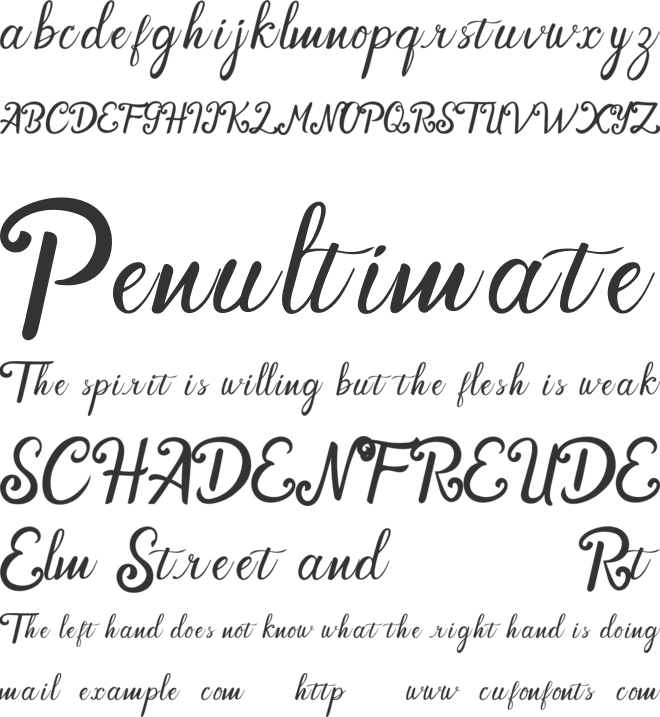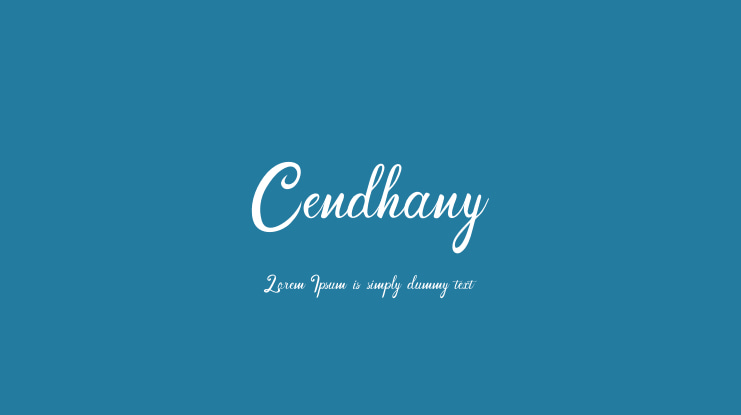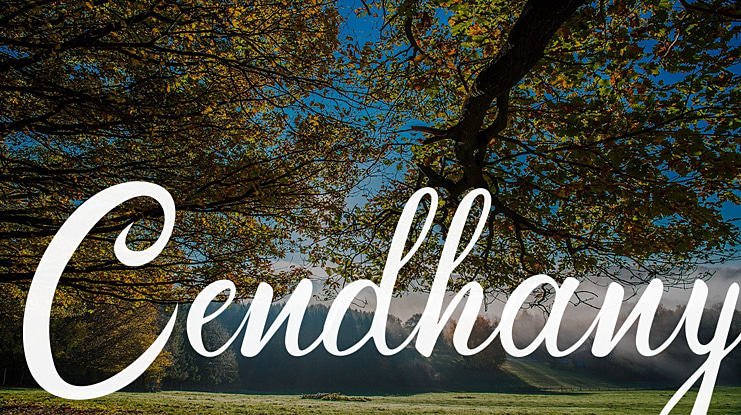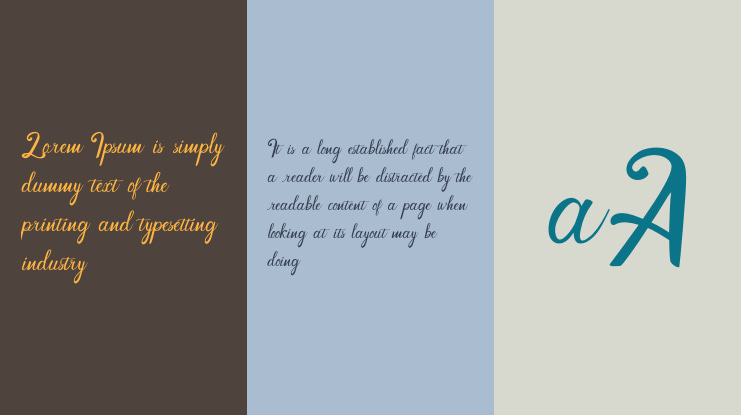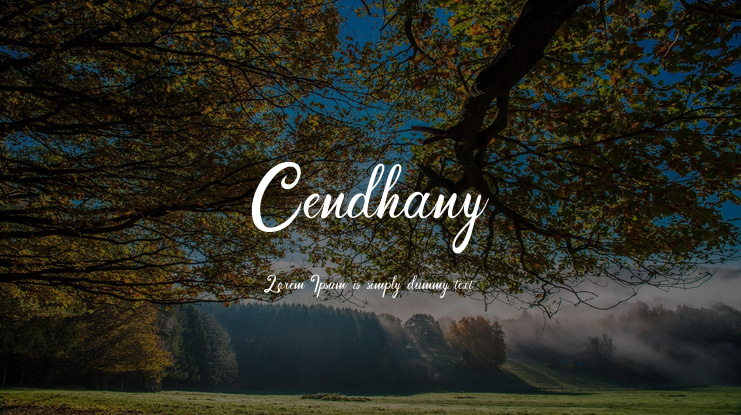
Cendhany Font
Introducing Cendhany is a hand-lettered typeface. This font is made by handwriting naturally using a brush pen so it can produce good quality fonts.